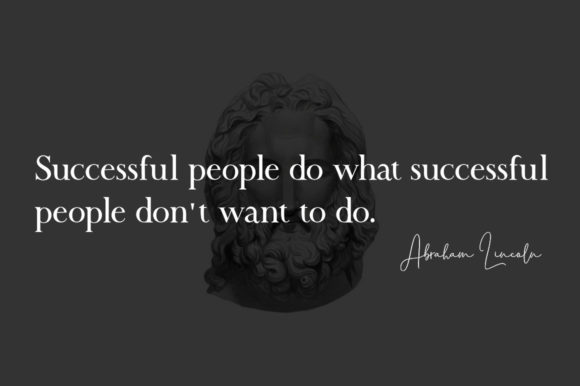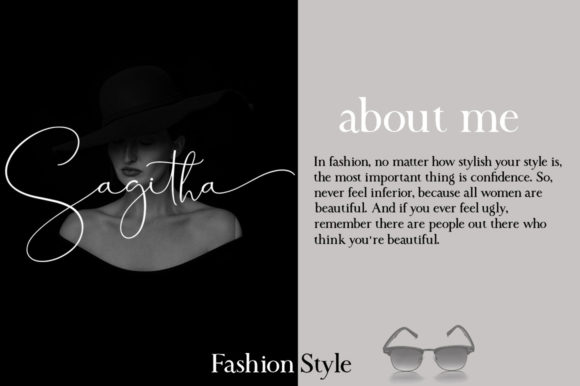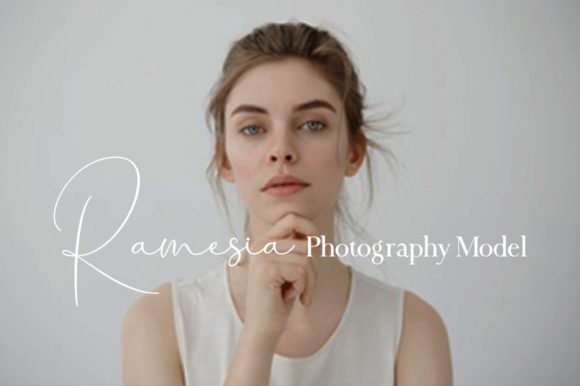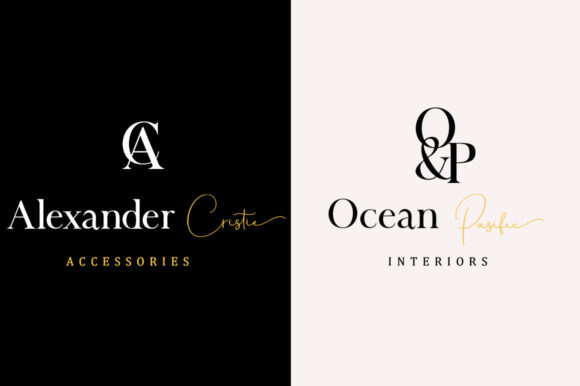
About California Signature Font
California Signature is an elegant and duo (serif and script) font. This will add a splash of luxury to any design project you want to create! This font is PUA encoded which means you can access all the amazing glyphs and ligatures with ease!